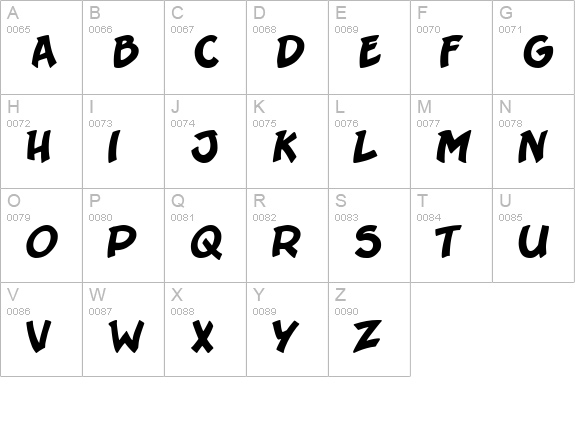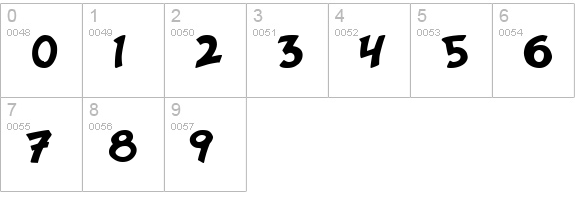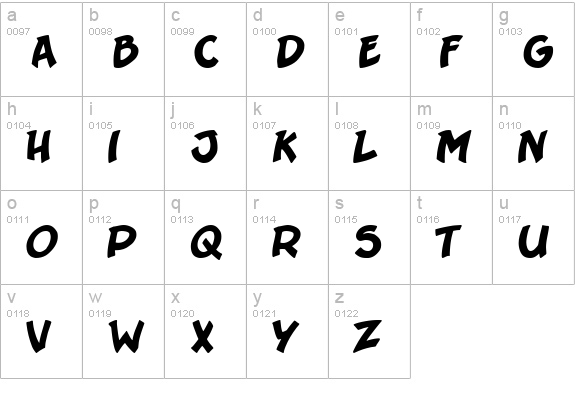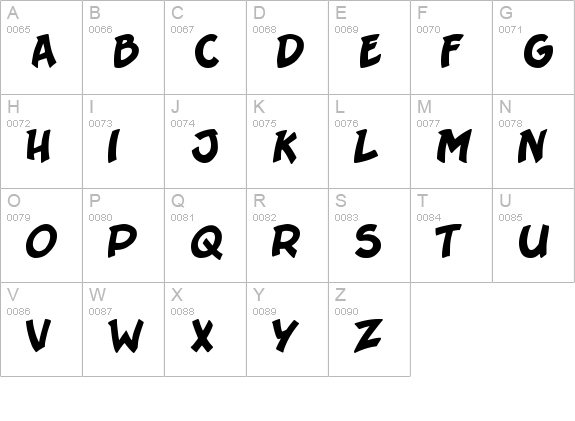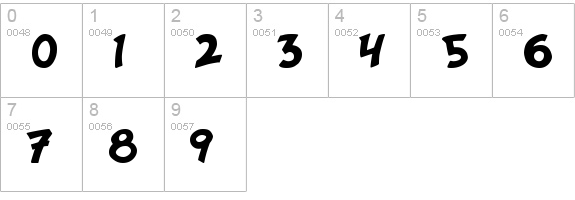
Sergeant SixPack Font Details
Introducing Sergeant SixPack, the epitome of boldness and strength in the world of typography. This powerful font commands attention with its robust and muscular letterforms that exude confidence and assertiveness. Sergeant SixPack is the perfect choice for any design project that requires a bold and impactful statement. Whether you're creating a striking headline, a strong logo, or a memorable poster, this font delivers unparalleled strength and presence. Each character of Sergeant SixPack is meticulously crafted, showcasing sharp edges and clean lines that give it a definitive and commanding appearance. The carefully designed curves and angles effortlessly convey a sense of power and authority, making this font stand out from the crowd. What sets Sergeant SixPack apart from other fonts is not just its striking aesthetics, but also its accessibility. This font is freely available to download at FontsMarket.com, ensuring that anyone can harness its strength and versatility for their creative endeavors. Whether you're a designer, an artist, or simply someone in search of a font that embodies strength, Sergeant SixPack is the ultimate choice. Unleash your creativity and make a bold statement with this free and powerful font.